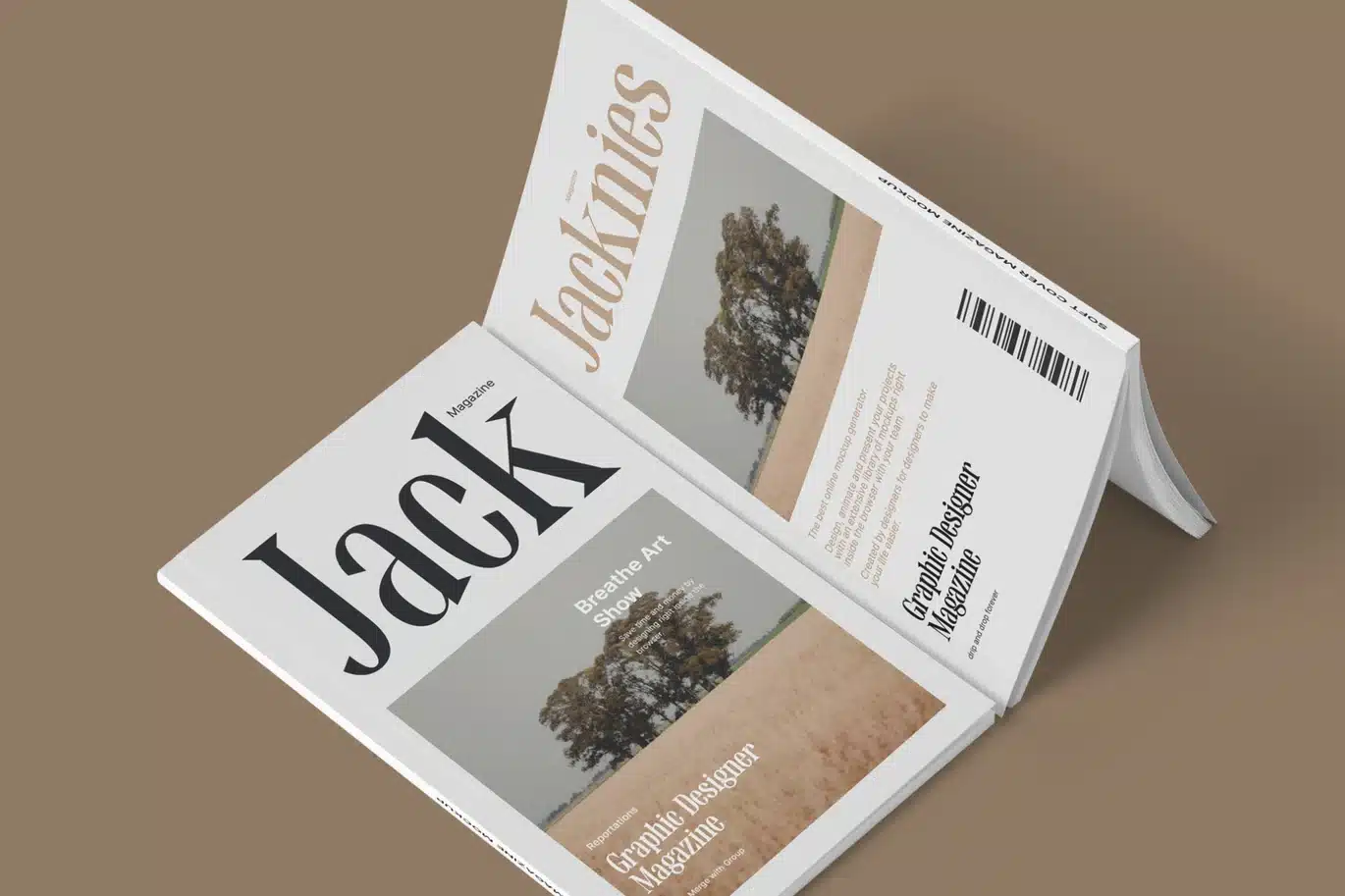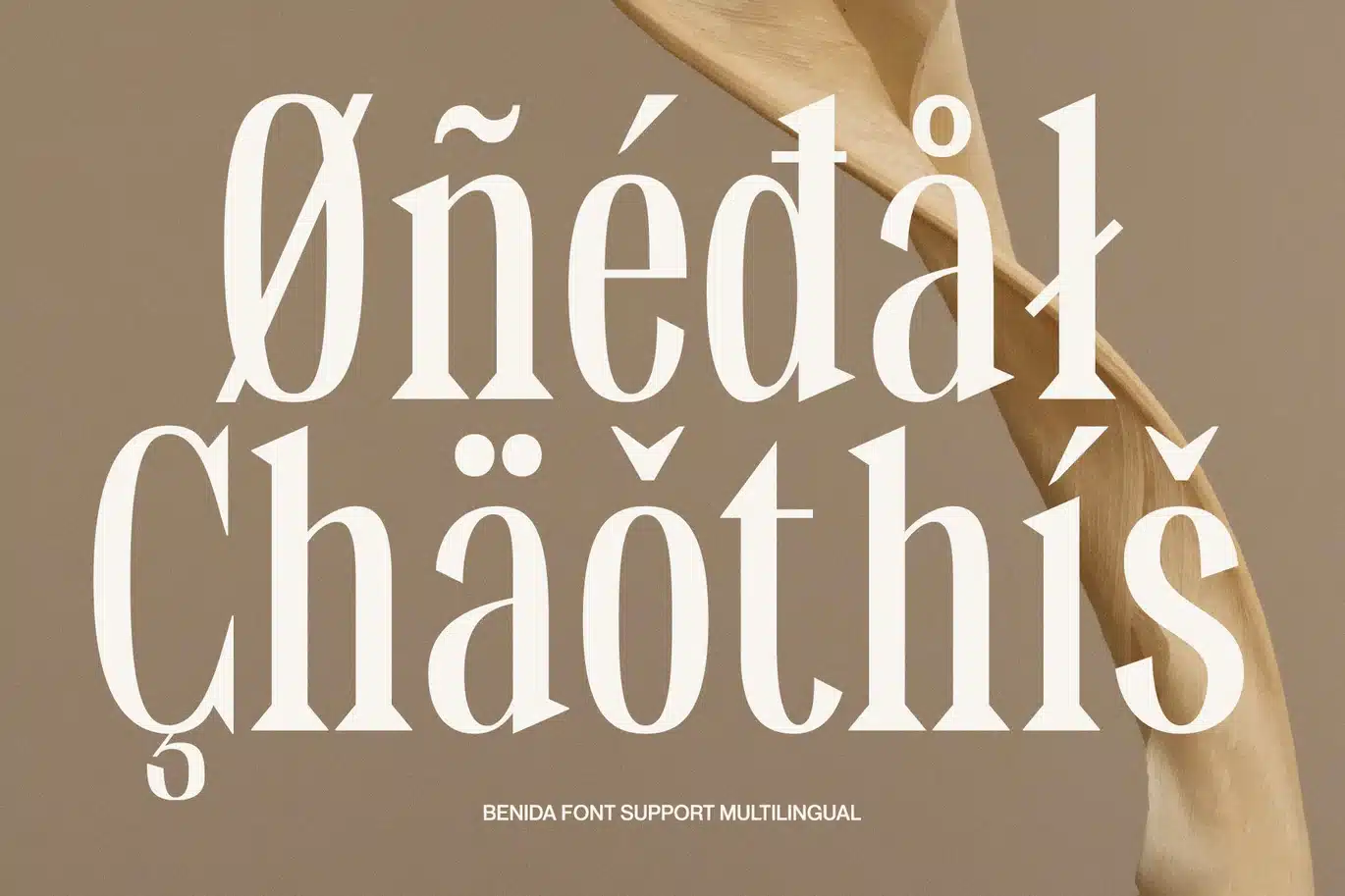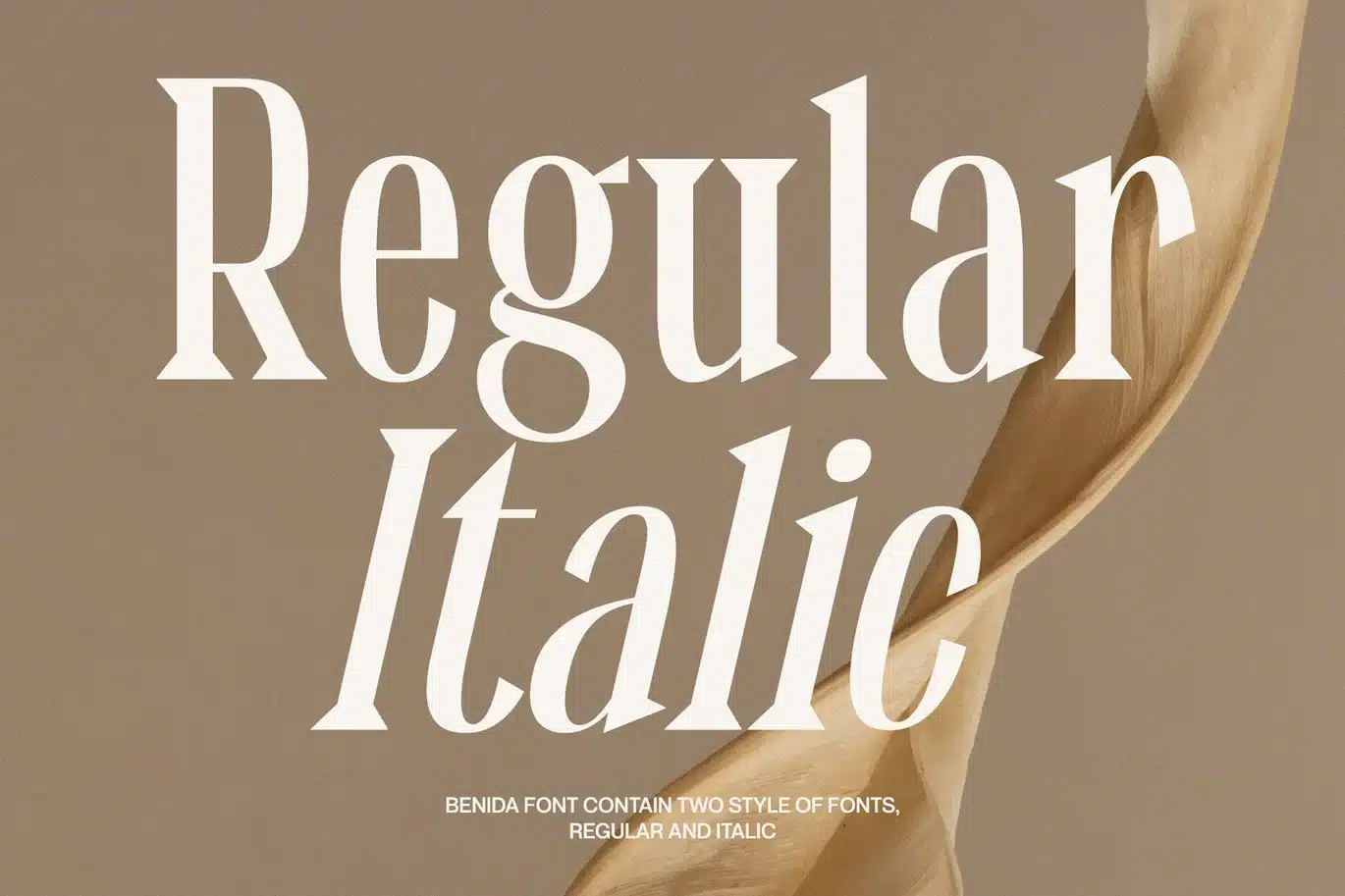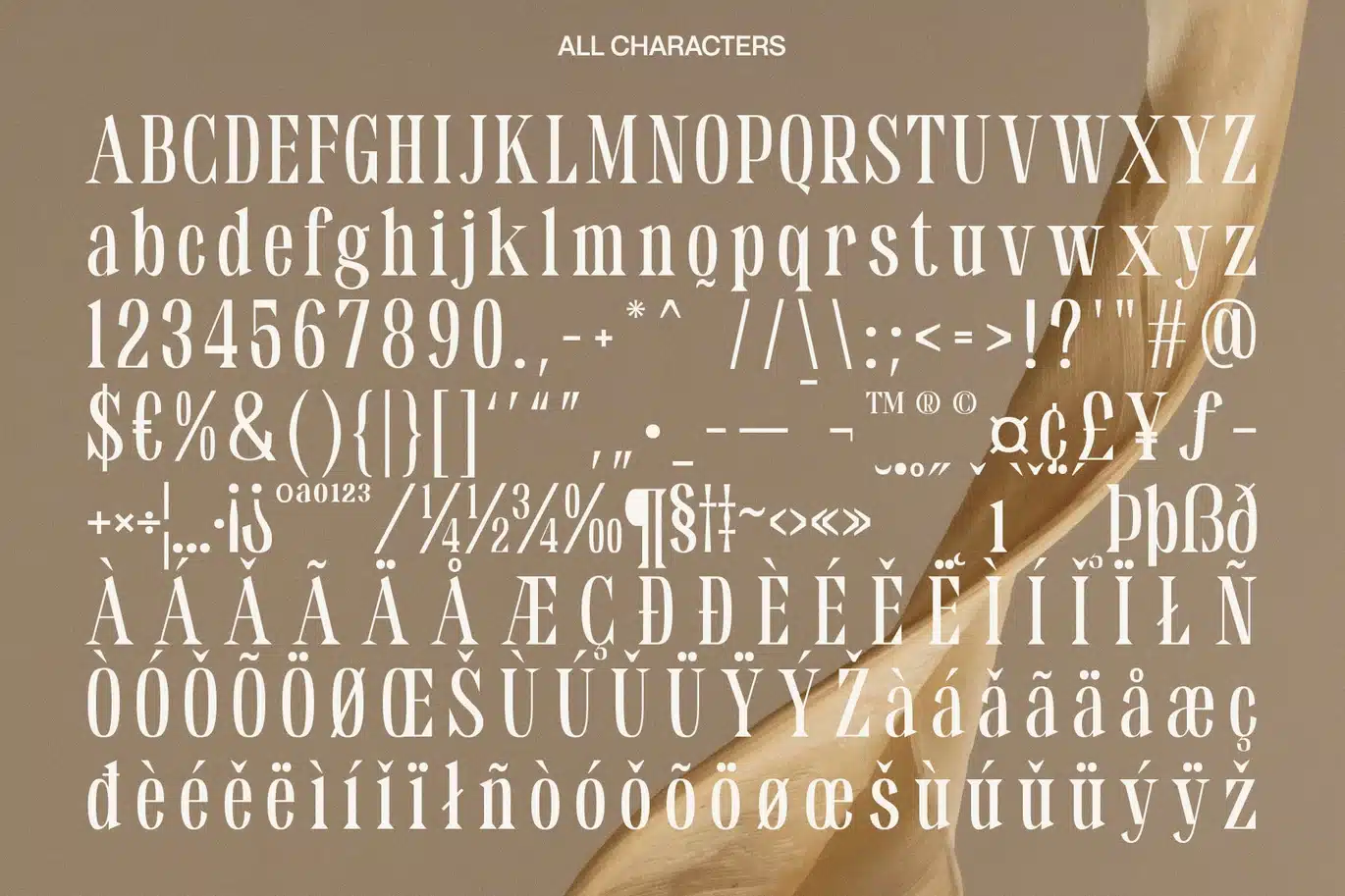
Benida – Elegant Serif Font
Introduction to Benida Serif Font
Benida, an elegant serif font, offers a high-contrast serif design. Its unique style is perfect for various applications. The font’s design is both bold and refined, making it versatile. Ideal for those seeking a mix of elegance and assertiveness, Benida is a great choice.
Design Features
Benida features high-contrast serifs, adding sophistication to its look. The wedges in the serif are carefully crafted. These elements combine to create a distinct, impactful appearance. The font’s structure balances strength with grace, making it stand out. This balance ensures that Benida is suitable for both formal and creative uses.
Benida Regular
Benida Italic
Uppercase and lowercase characters
Numerals and Punctuation (OpenType Standard)
Accents (Supports Multilingual Characters)